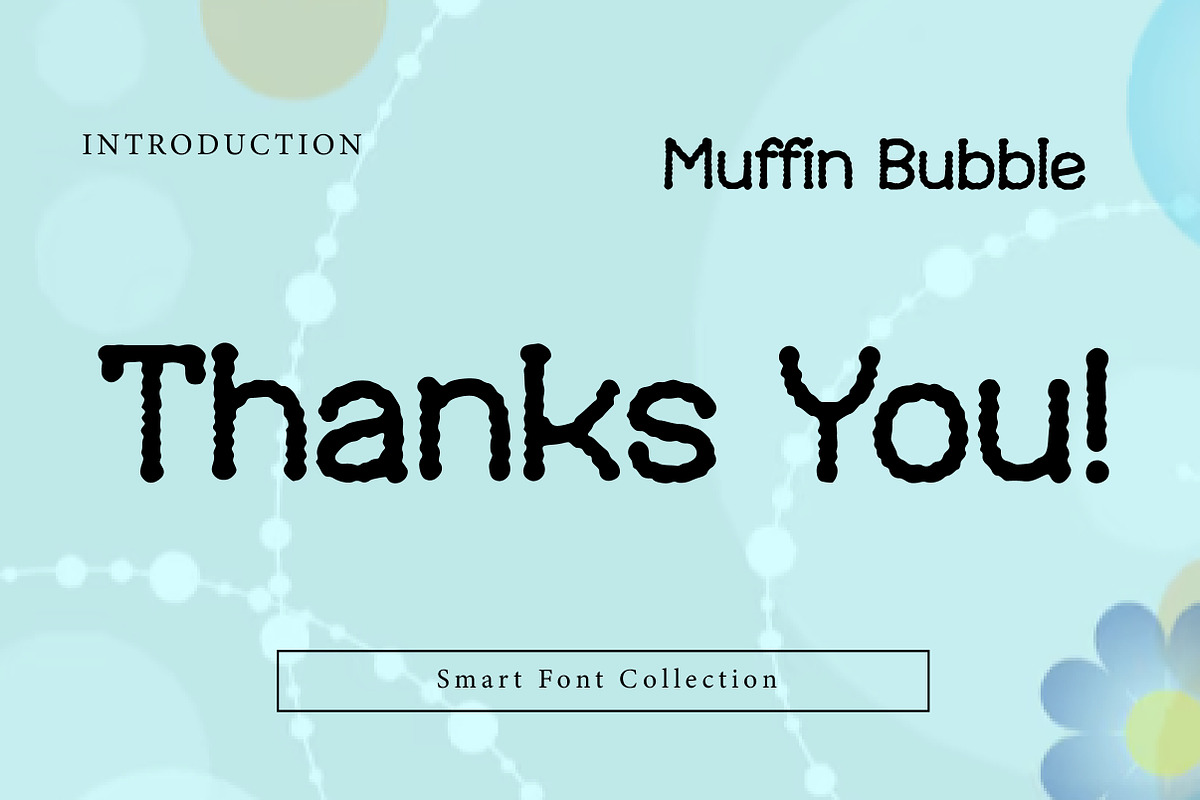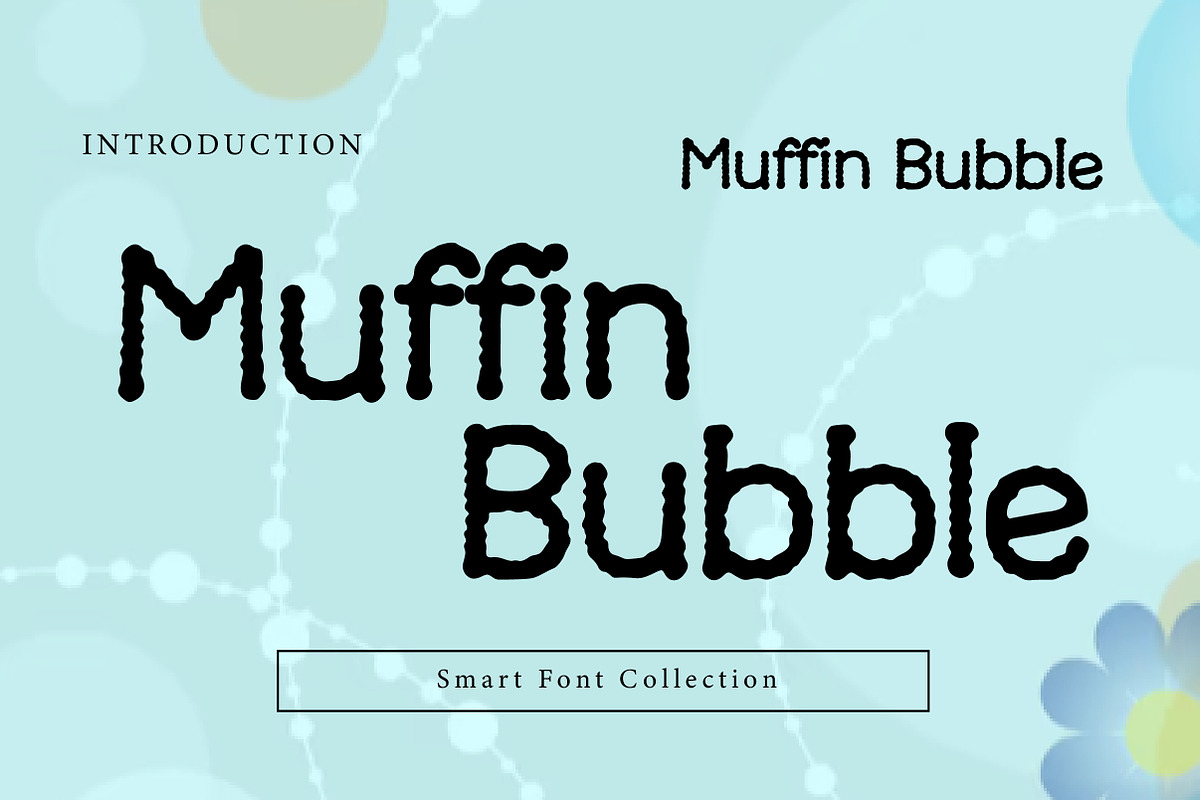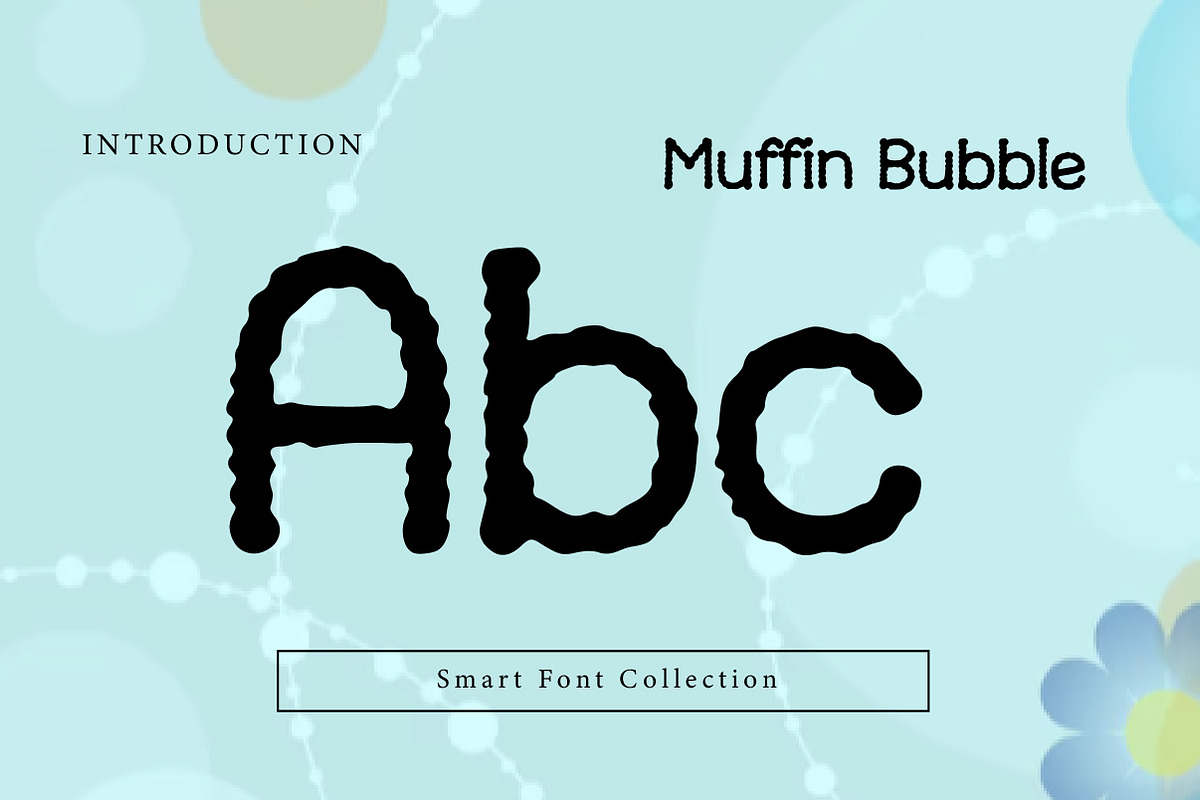
Muffin Bubble
Muffin Bubble is a soft, playful display font with a cozy handmade texture and rounded bubbly shapes. Its slightly rough, organic edges give it a warm, friendly feel—perfect for bakery branding, café menus, kids designs, packaging, stickers, posters, and cheerful social media graphics. Muffin Bubble brings a sweet, homemade personality to your typography, making it ideal for designs that want to feel cute, welcoming, and full of charm.